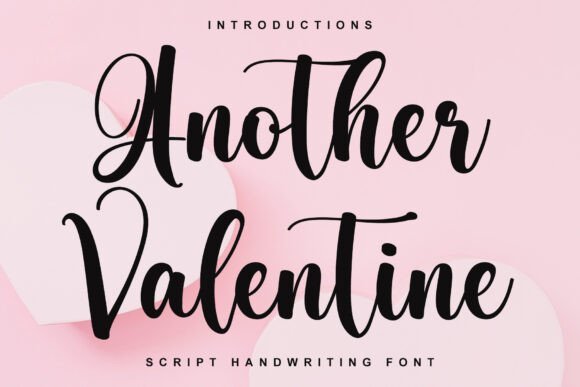
Have you ever been in the midst of a creative project, staring at a blank page or screen, searching for the perfect font to bring your idea to life? It’s that moment of frustration and excitement when you know you’ve found the perfect solution. For designers looking to add a touch of whimsy and romance to their work, I’m excited to introduce you to Another Valentine Font.
This stylish and modern handwritten font is perfect for a wide range of applications, from greeting cards and headlines to branding and packaging. With its PUA encoding, you’ll have access to all the amazing glyphs and ligatures, making it a valuable tool for any designer looking to add a personal touch to their creations.
Another Valentine Font Key Features
- Unique Characteristics: Hand-drawn design with a mix of elegant and playful elements, ideal for romantic and whimsical projects
Designer Review: Another Valentine Font
Another Valentine Font has a unique and quirky charm that catches the eye. ✨ Its hand-drawn feel adds a personal touch, making it perfect for designs that require a more emotive tone. ✨ The font’s script style is well-suited for titles and headings, and its playfulness can add a touch of whimsy to any design.
However, there are some limitations to consider. ⚠️ The font’s readability can be a concern, especially at smaller sizes. ⚠️ Some letters may blend together, making it difficult to distinguish between similar characters. ⚠️ Additionally, the font’s consistency can be inconsistent, with some strokes appearing thicker than others.
Here are some specific areas to keep in mind:
- The font’s script style can be challenging to read in certain contexts.
- The inconsistent stroke widths can make the font look uneven.
- The font may not be suitable for body text, due to its decorative nature.
Overall, Another Valentine Font is a great choice for designs that require a touch of personality and whimsy. While it may not be suitable for all types of projects, its unique charm can add a memorable touch to your designs.
Getting the Most Out of Another Valentine Font
To get the most out of Another Valentine Font, use it in combination with bold or italic text to create a sense of contrast and emphasis.
Another Valentine Font is perfect for:
- Valentine’s Day designs and cards
- Love-themed social media graphics
Alternative Font Options to Another Valentine Font
Copperplate Script
Copperplate Script is a classic calligraphy font that can be used for formal invitations, wedding stationery, and other special occasions. It is elegant, refined, and perfect for creating a sophisticated look.
Compared to Another Valentine Font, Copperplate Script is more formal and traditional. While Another Valentine Font has a vintage feel, Copperplate Script is more polished and refined. Use Copperplate Script when you want to convey a sense of luxury and elegance.
Great Vibes is a modern script font that is perfect for creating a relaxed, casual atmosphere. It is great for use in logos, branding, and other design elements where a friendly, approachable feel is desired.
Compared to Another Valentine Font, Great Vibes is more modern and casual. While Another Valentine Font has a vintage feel, Great Vibes is more contemporary and laid-back. Use Great Vibes when you want to create a friendly, approachable brand image.
Carolyna Pro is a elegant script font that is perfect for use in fashion, beauty, and lifestyle branding. It is sophisticated, refined, and has a touch of glamour.
Compared to Another Valentine Font, Carolyna Pro is more modern and glamorous. While Another Valentine Font has a vintage feel, Carolyna Pro is more polished and refined. Use Carolyna Pro when you want to create a luxurious, high-end brand image.